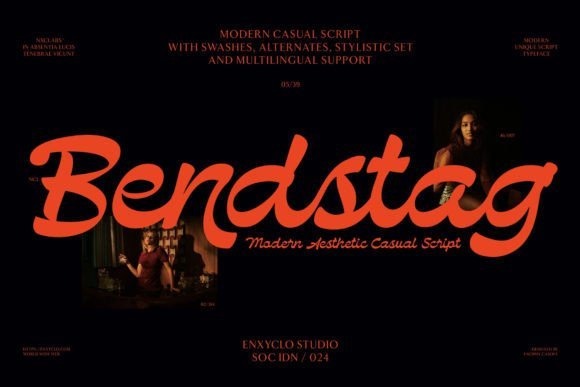
The Perfect Script to Bring Your Creative Vision to Life
Have you ever stared at a blank page, trying to conjure up the perfect words to express your artistic vision? The blank space can be daunting, but what if you had the right tool to spark your creativity? That’s where the Bendstag Font comes in – a modern casual script display font designed to elevate your ideas and make them shine.
This beautiful font is not just a pretty face; it’s a powerful tool that can be used in a variety of applications, from large point sizes in headlines and digital ads to smaller sizes in magazines, websites, and posters. With its versatility and charm, the Bendstag Font is a valuable addition to any designer’s library, offering the potential to make any project stand out from the rest.
- Unique Characteristics: The Bendstag font features a unique blend of modern and vintage elements, with distinctive letterforms and a high level of detail.
Bendstag Font Review
I recently had the chance to work with Bendstag Font, and I must say, it’s a unique and eye-catching font. ✨ One of the things that I appreciate about Bendstag is its versatility – it works well for both digital and print projects, and its modern design makes it perfect for creative and innovative brands.
Another strength of Bendstag Font is its character set – it includes a wide range of languages, making it a great option for projects that require multilingual support. ✨ Additionally, the font is well-suited for headlines and titles, adding a touch of sophistication and elegance to any design.
- ⚠️ The font may be too bold for some projects, so it’s essential to use it sparingly to avoid overwhelming the viewer.
- ⚠️ Bendstag Font may not be the best option for body text, as it can be difficult to read in smaller sizes.
Overall, I’m impressed with Bendstag Font, and I would recommend it for projects that require a modern, creative, and eye-catching design. However, it’s essential to use it judiciously to avoid overwhelming the viewer.
The Bendstag font is ideal for:
- Creating eye-catching headings and titles.
- Adding a touch of elegance to formal documents and presentations.
- Designing modern and minimalist branding materials.